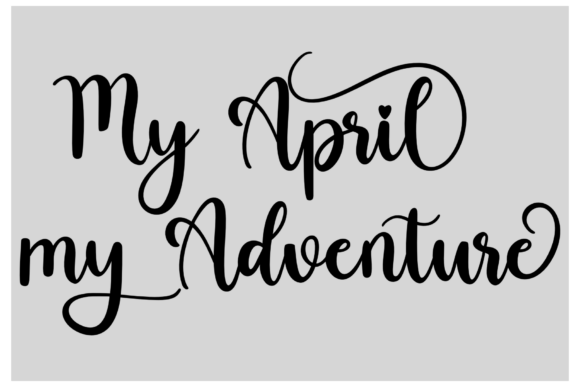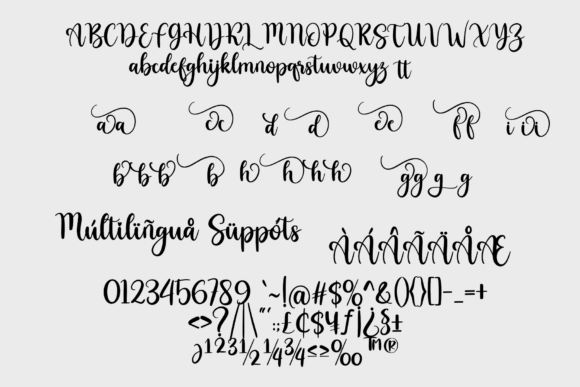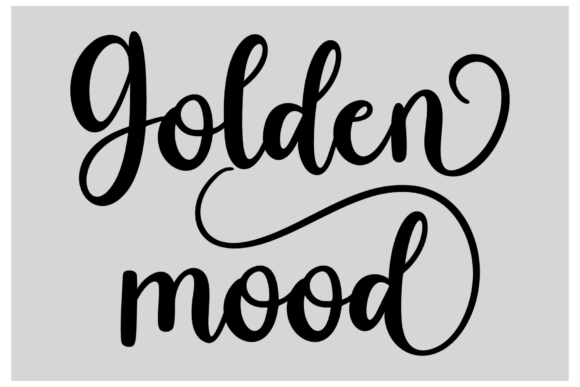
A Spring in Your Step: Discovering the Kissed Spring Font
There’s something magical about the first signs of spring – the way the air feels fresh and new, the vibrant colors of blooming flowers, and the sense of possibility that comes with a new season. As creatives, we often find ourselves drawn to the same themes of renewal and growth, seeking inspiration in the natural world to bring to our designs. For many, this search for inspiration leads to the discovery of the charming Kissed Spring Font, a modern script font that captures the essence of springtime in all its glory.
Designed to evoke the feeling of warmth and elegance, the Kissed Spring Font is perfect for adding a touch of personality and sweetness to any design. Whether you’re working on a wedding invitation, branding project, or social media post, this font delivers a fresh and romantic look that’s sure to stand out. Its natural handwritten movement and playful heart details make it a valuable addition to any designer’s toolkit, allowing you to bring a little bit of springtime magic to your work.
Kissed Spring Font Key Features
- Unique Characteristics: Kissed Spring Font features a unique, hand-drawn design with subtle floral elements and a soft, romantic feel, making it ideal for creative and artistic projects.
- Script and Style Options: This font includes multiple script and style options, allowing users to customize their text and add a touch of elegance to their designs.
Kissed Spring Font Review
I must say, I’m quite impressed with the Kissed Spring Font. It’s a beautiful, elegant script font that exudes a sense of softness and delicacy ✨. The subtle swashes and flourishes add a touch of whimsy, making it perfect for creating a romantic or vintage feel. The font is also highly legible, making it suitable for body text as well as headings.
One of the standout features of Kissed Spring is its versatility. It works well in a variety of contexts, from wedding invitations to greeting cards, and even branding materials ✨. The font is also highly customizable, allowing you to adjust the weight, size, and spacing to suit your specific needs.
- ⚠️ Limited character set: Kissed Spring is a script font, which means it may not be suitable for all types of text. The font may not have a comprehensive character set, which could be a limitation for languages that require a wider range of characters.
- ⚠️ Not ideal for display text: While Kissed Spring is highly legible, it’s not the best choice for display text. The font may get lost at larger sizes, making it difficult to read.
Overall, I’d give Kissed Spring a solid 4 out of 5 stars. While it’s not perfect, it’s a beautiful and versatile font that’s sure to impress. With a little creativity and customization, Kissed Spring can be a valuable addition to any designer’s toolkit ✨.
Getting the Most Out of the Kissed Spring Font
The Kissed Spring Font is perfect for creating beautiful and elegant designs. To get the most out of it, try using it in conjunction with other elegant fonts and design elements, such as floral patterns and soft colors.